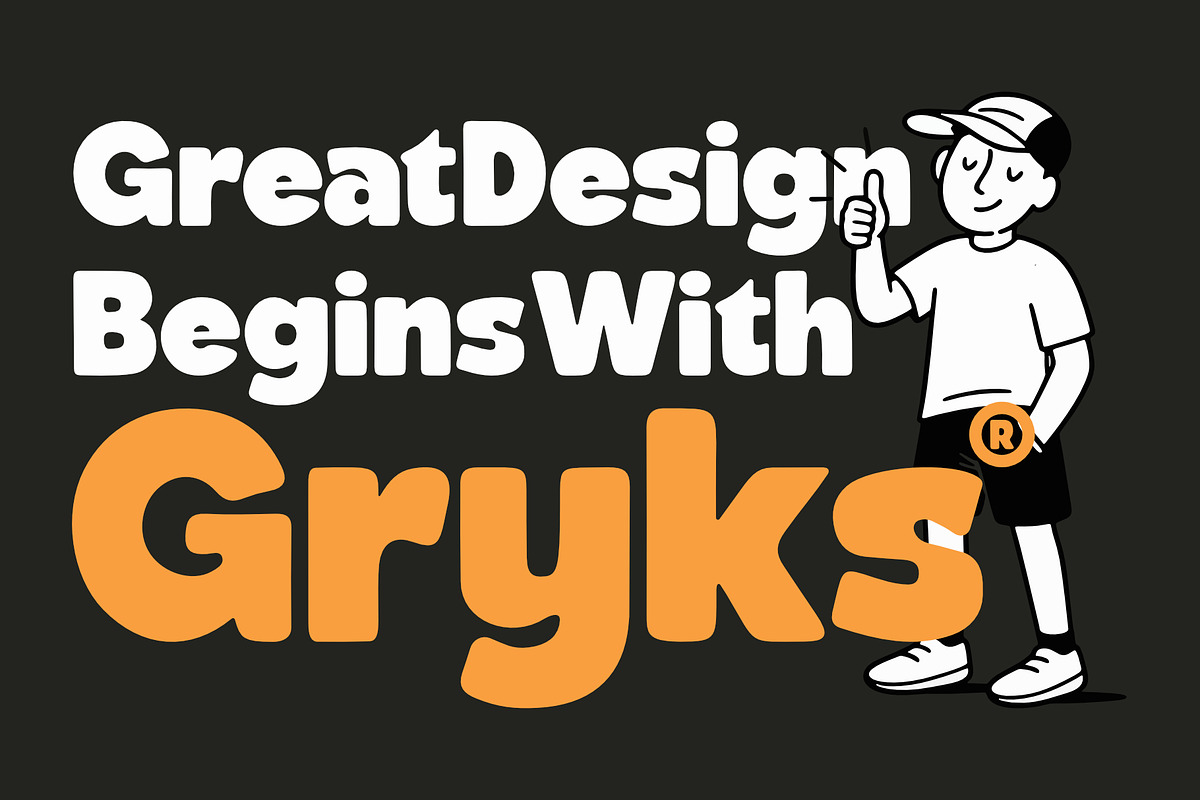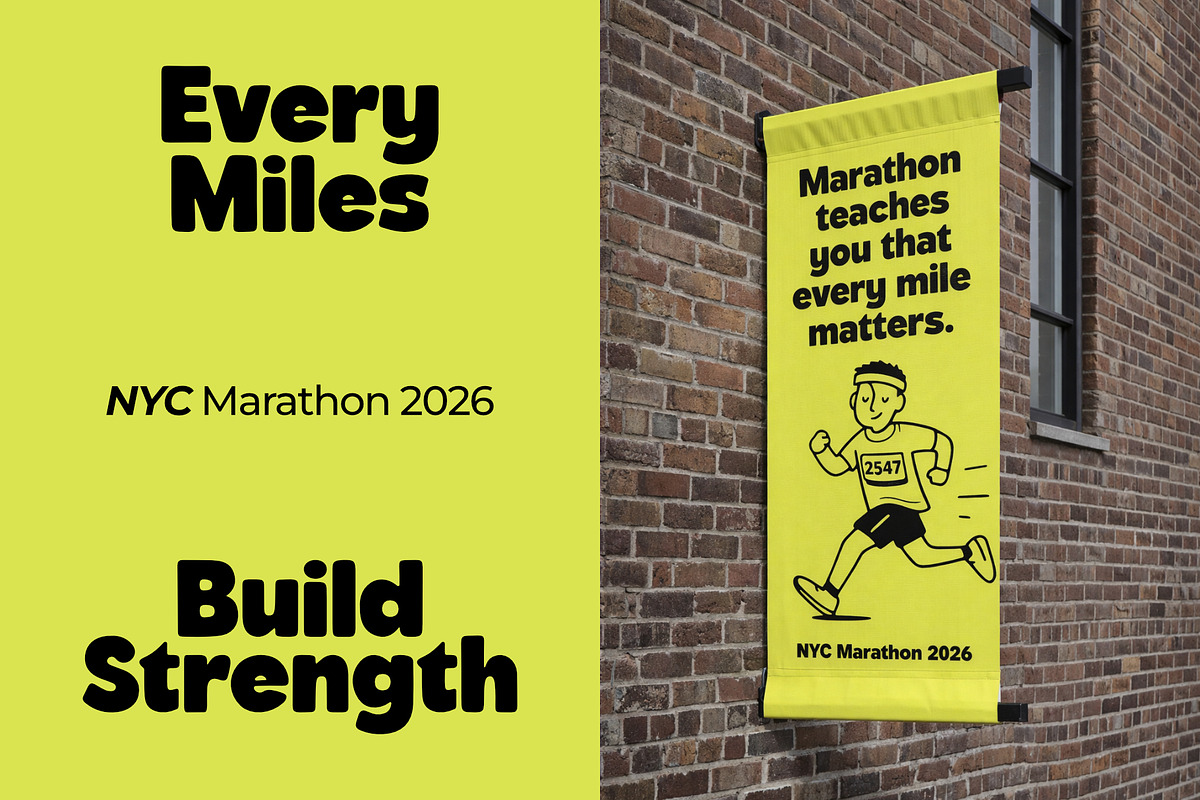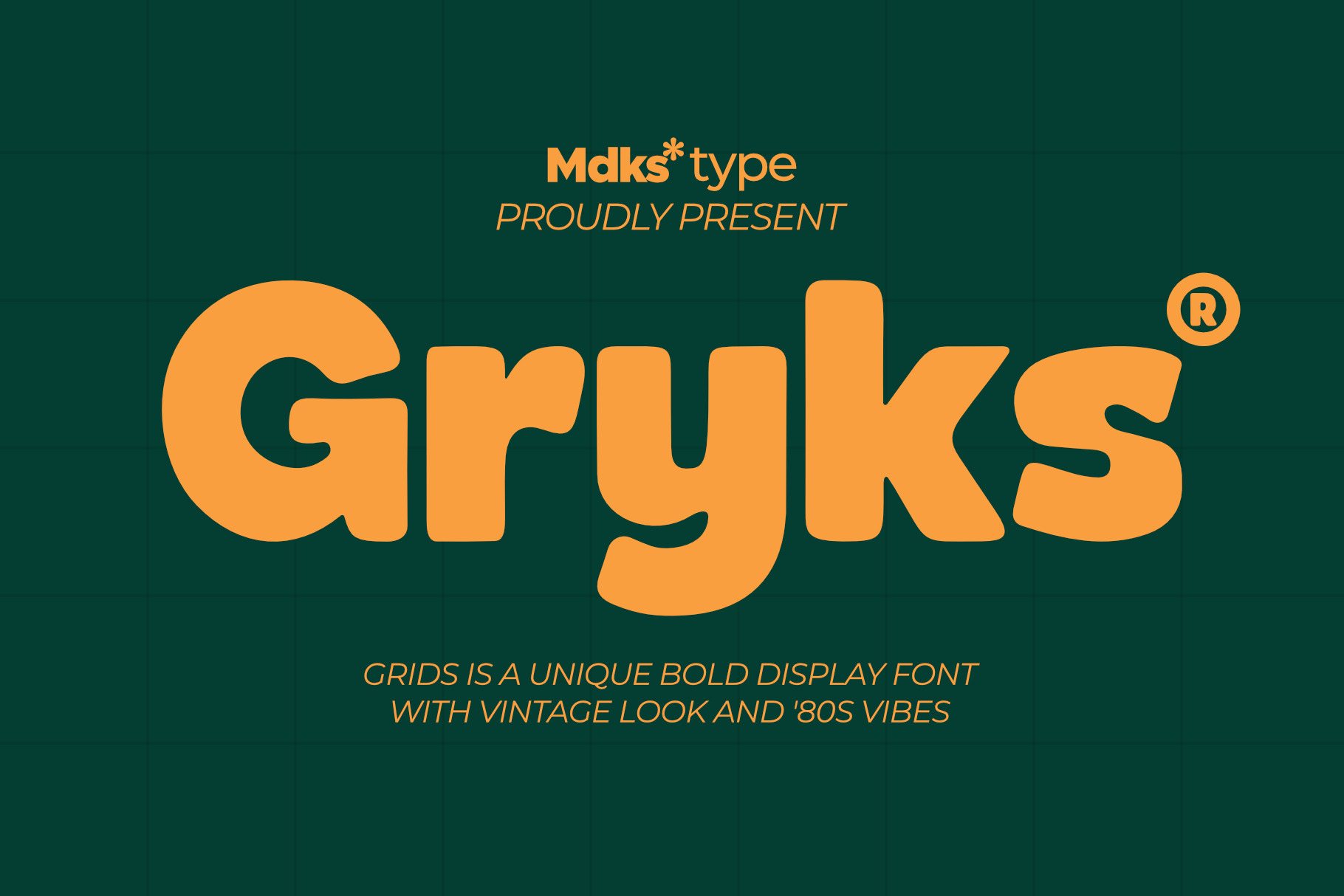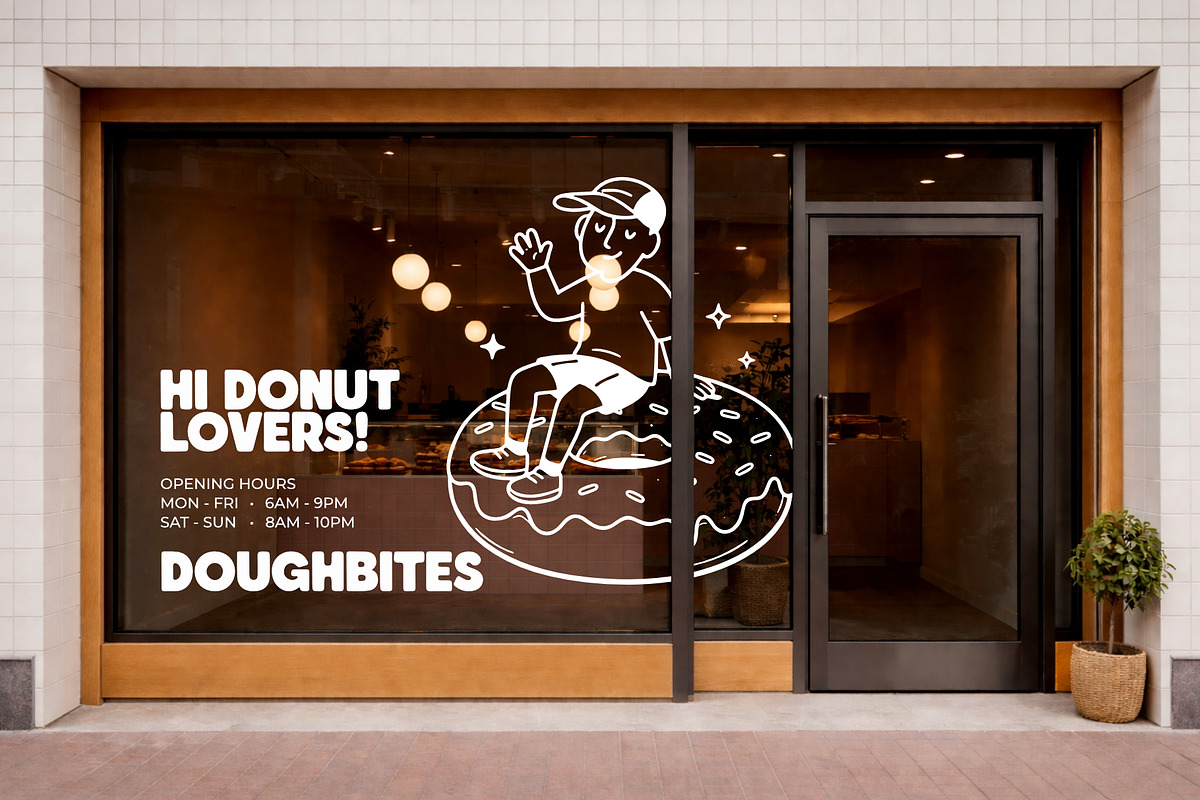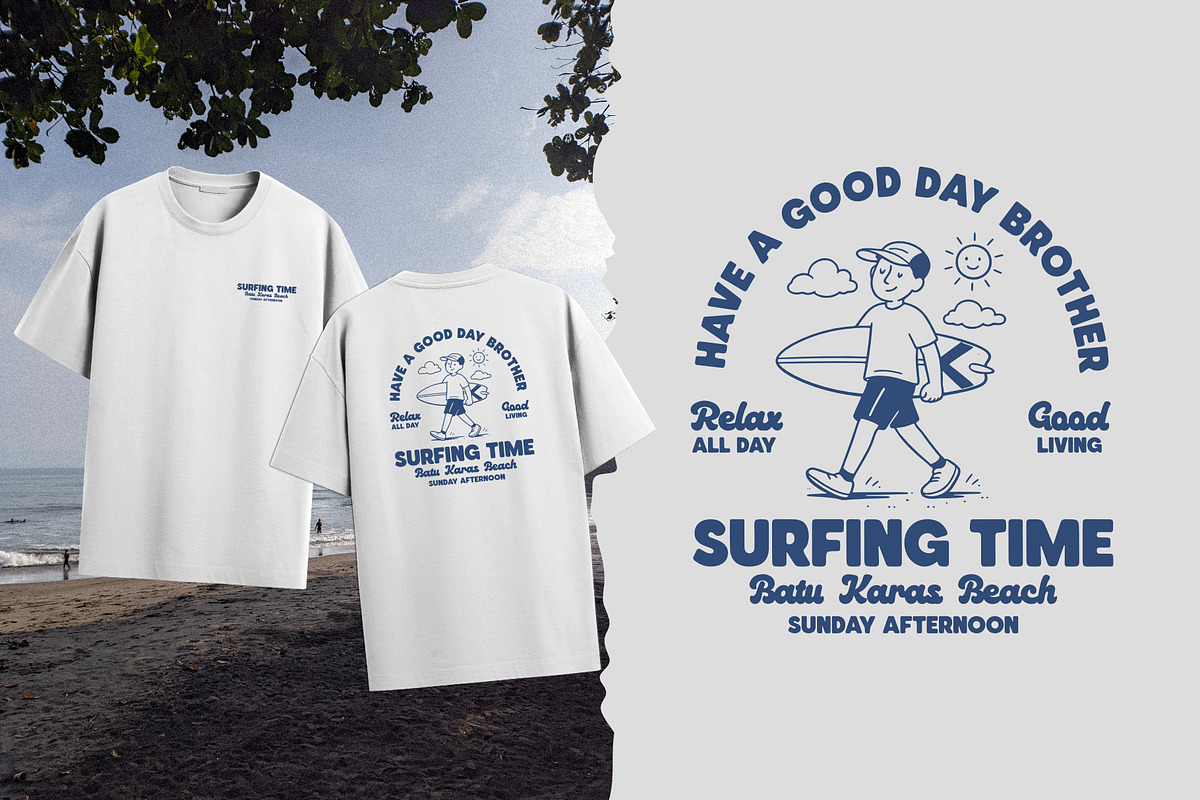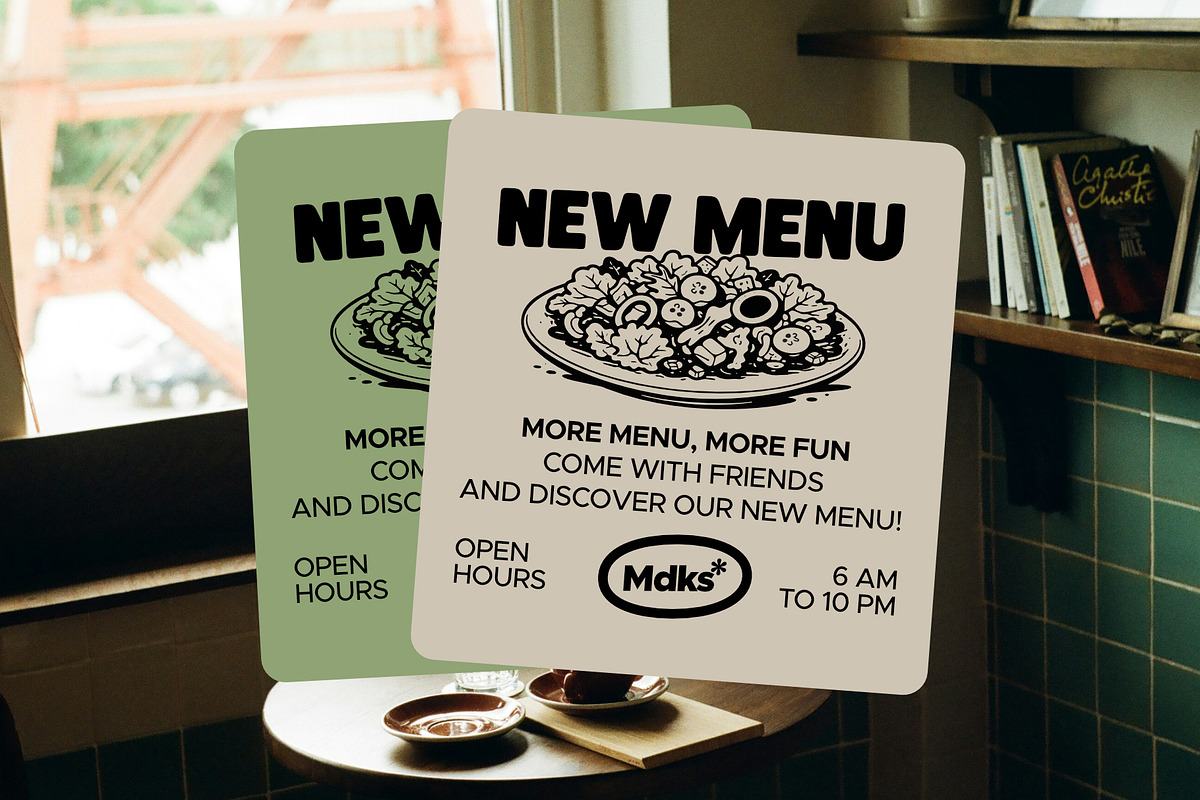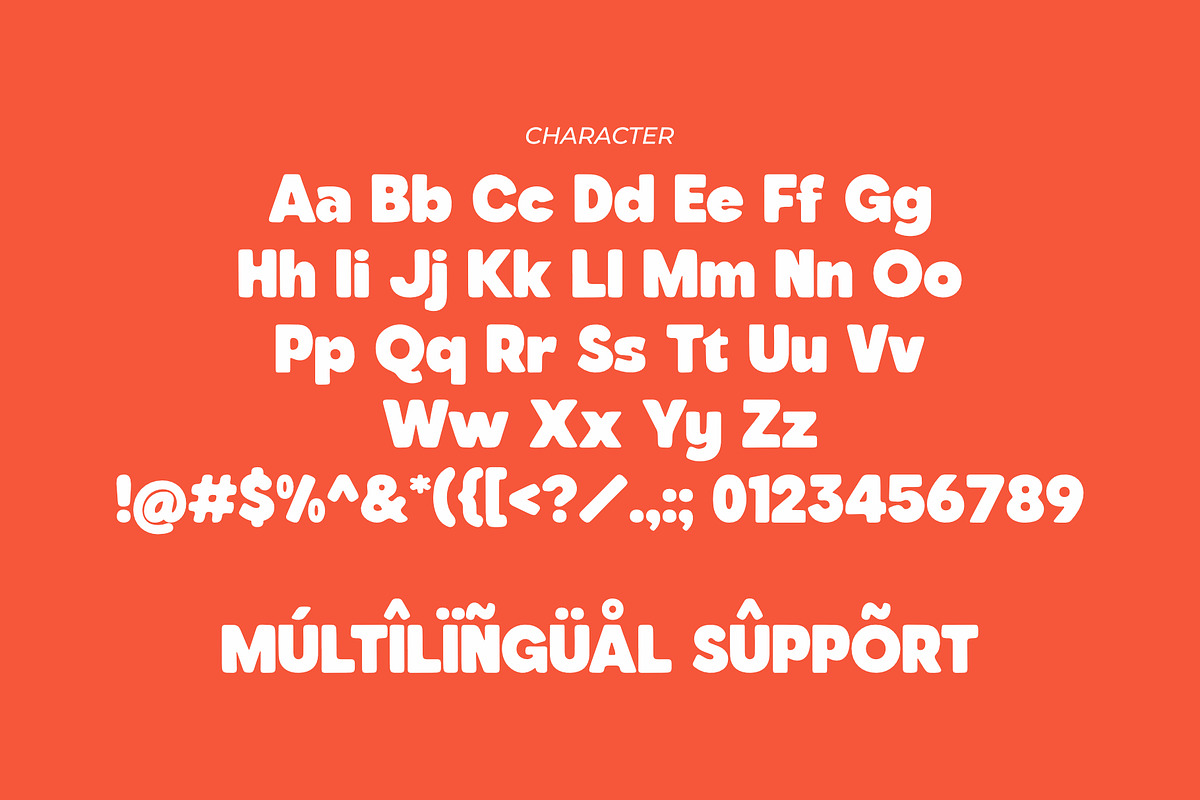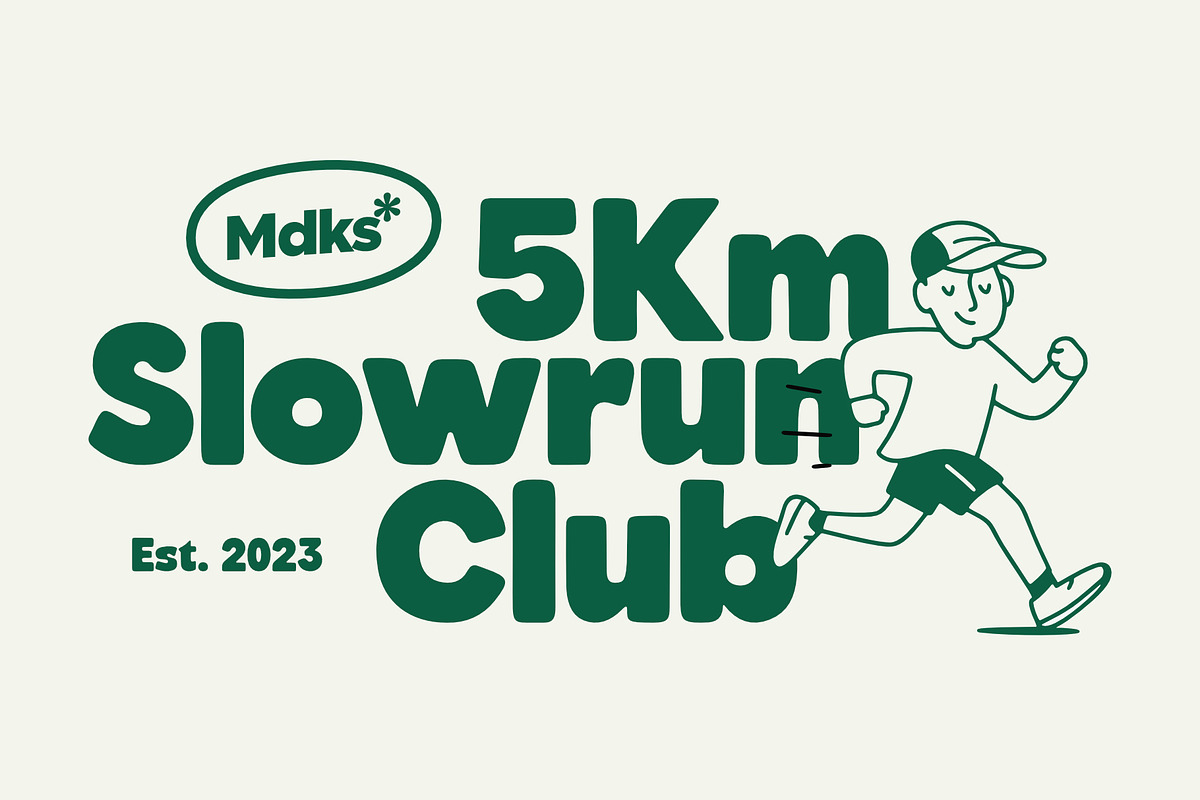
Gryks Font
Gryks is a bold and playful display font inspired by vintage typography and the energetic spirit of the 80s. With its thick curves, soft corners, and confident personality, Grids is designed to grab attention and make your message stand out instantly.
This typeface works perfectly for branding, posters, packaging, streetwear designs, logos, signage, social media graphics, and any project that needs a strong and friendly visual impact.
The rounded shapes and balanced proportions make Grids both powerful and approachable, giving your designs a nostalgic retro vibe while still feeling fresh and modern.
Whether you're creating bold headlines, fun merchandise, or eye-catching brand identities, Grids will help your design speak louder and stronger.